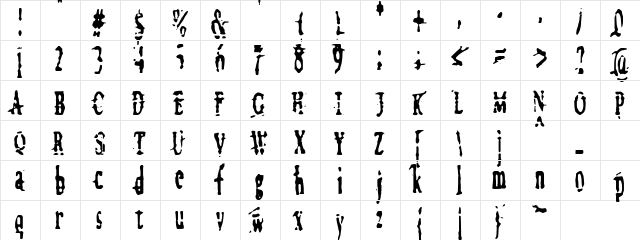
Megalomania X Regular
| Foundry | MR.FISK FONTS |
| Designer | MR.FISK |
Design Context for Megalomania X Typeface
Megalomania X is a composed and adaptable typeface that performs quietly and consistently across a wide range of design contexts.